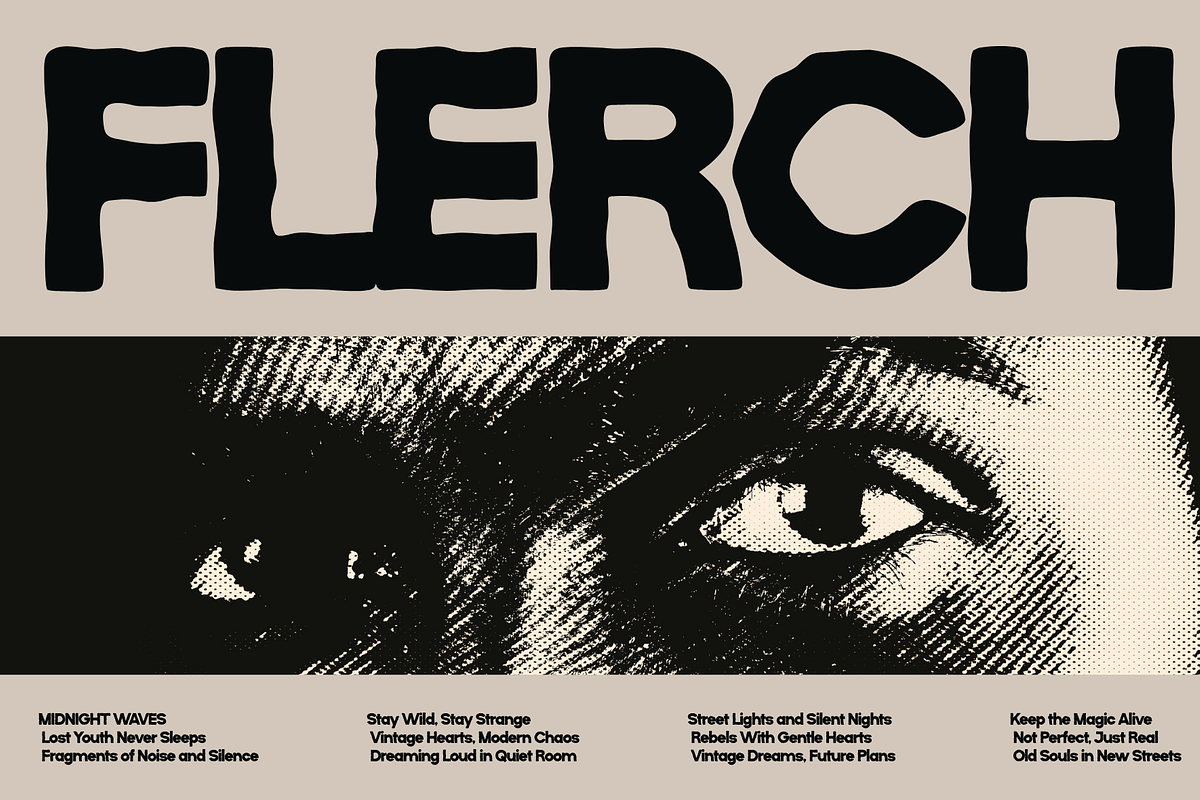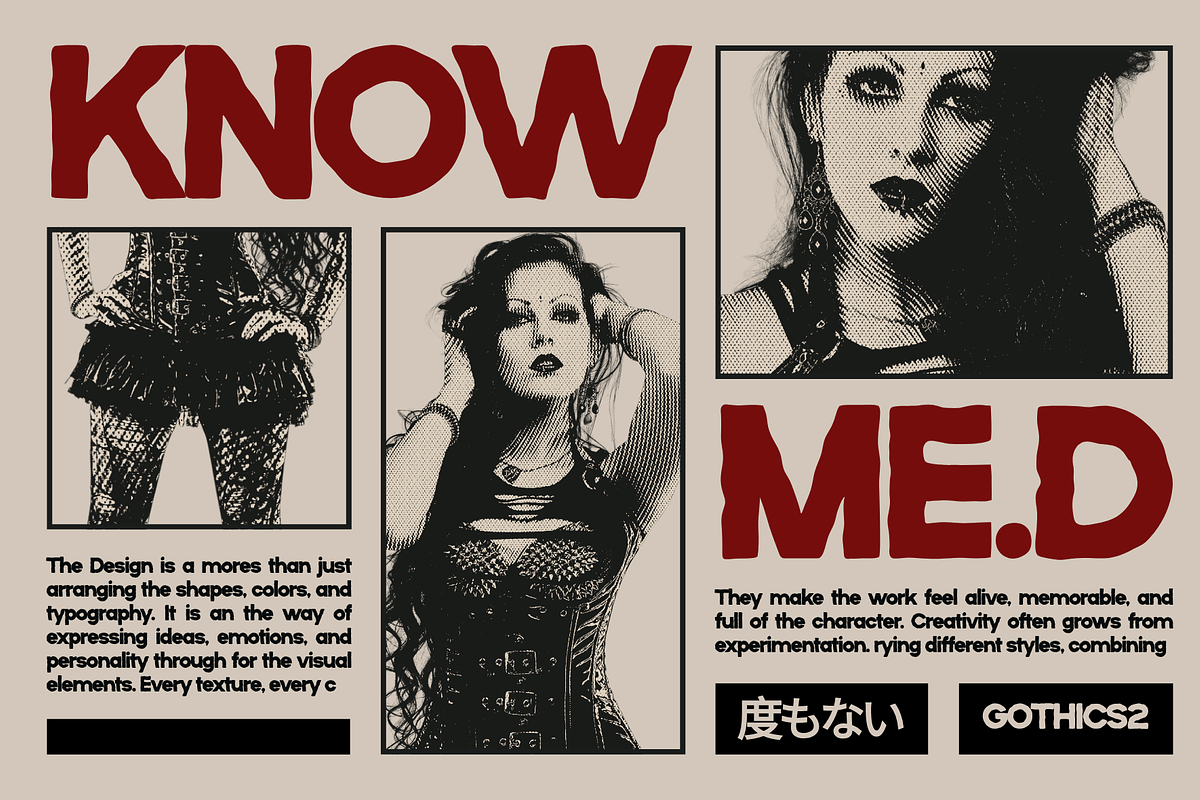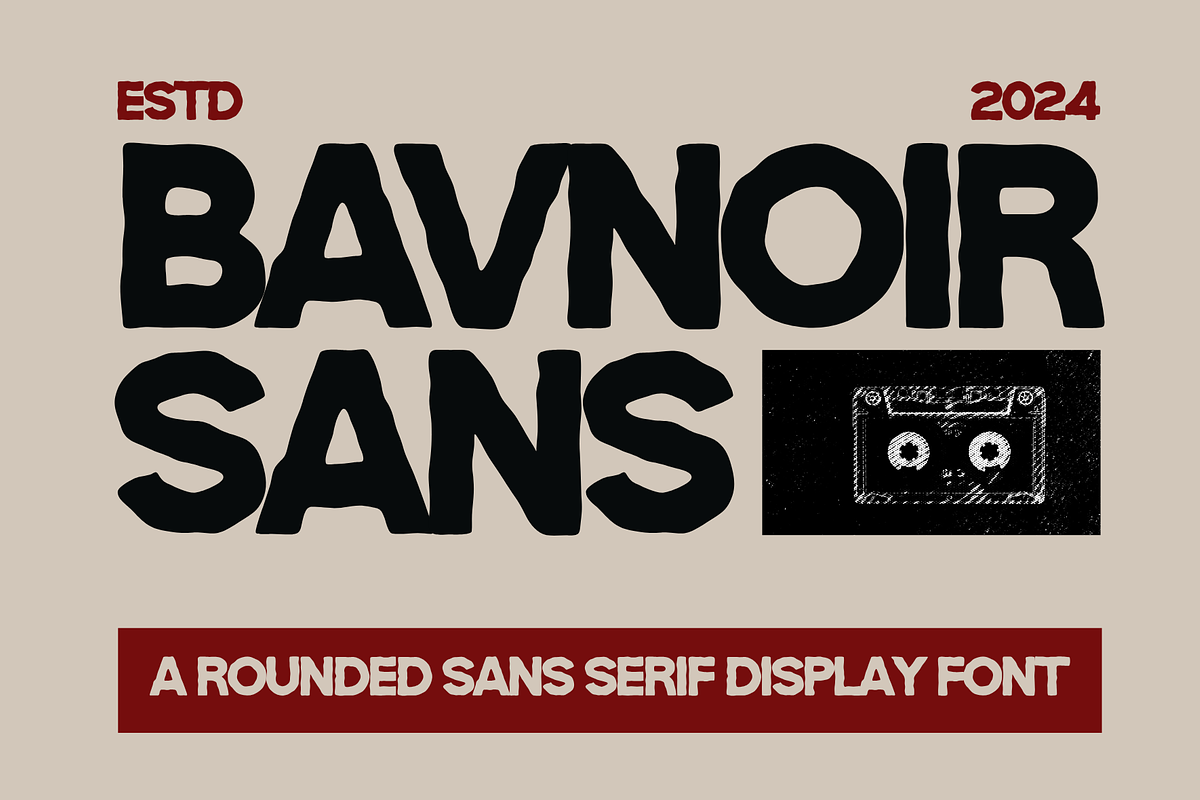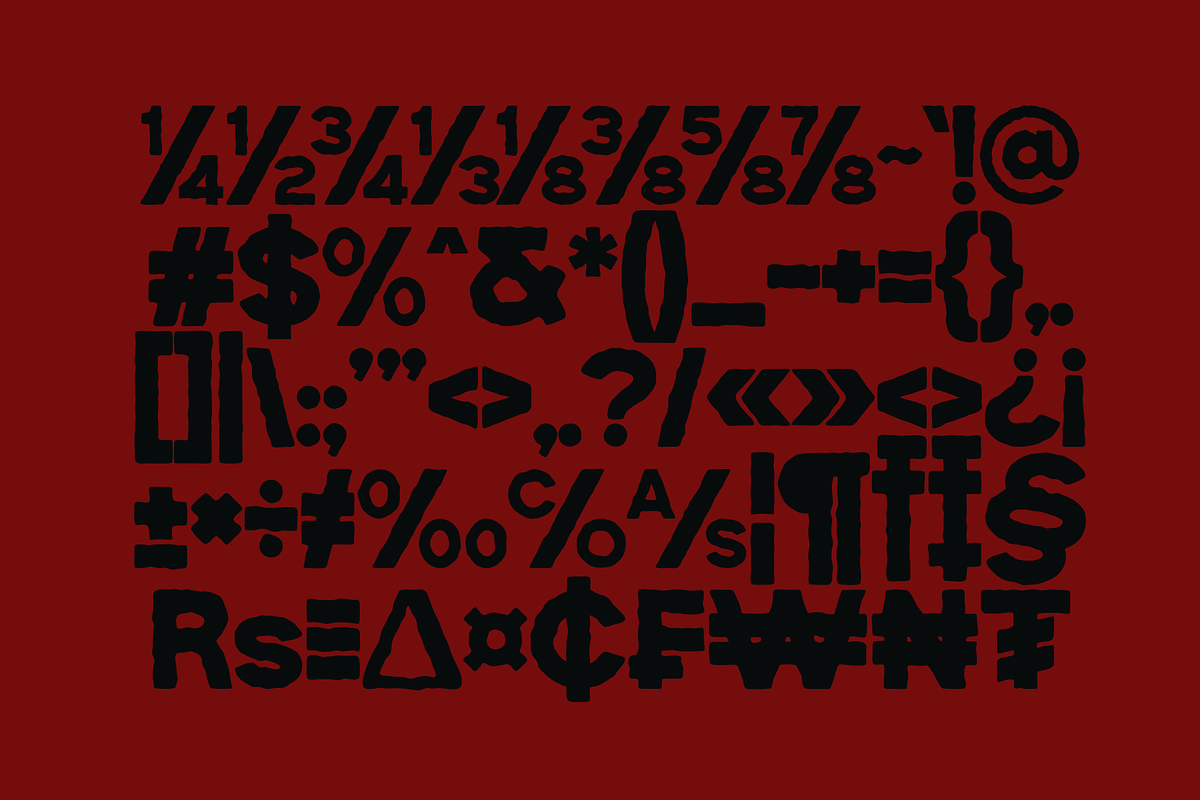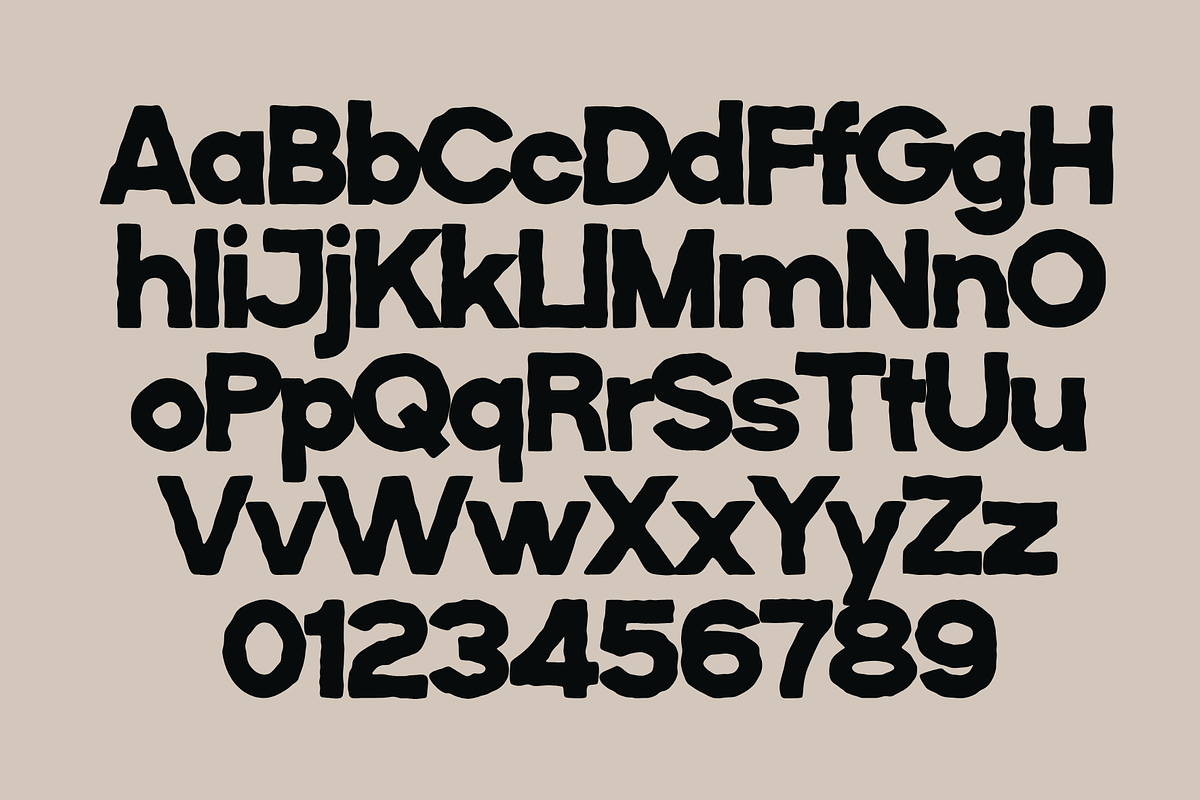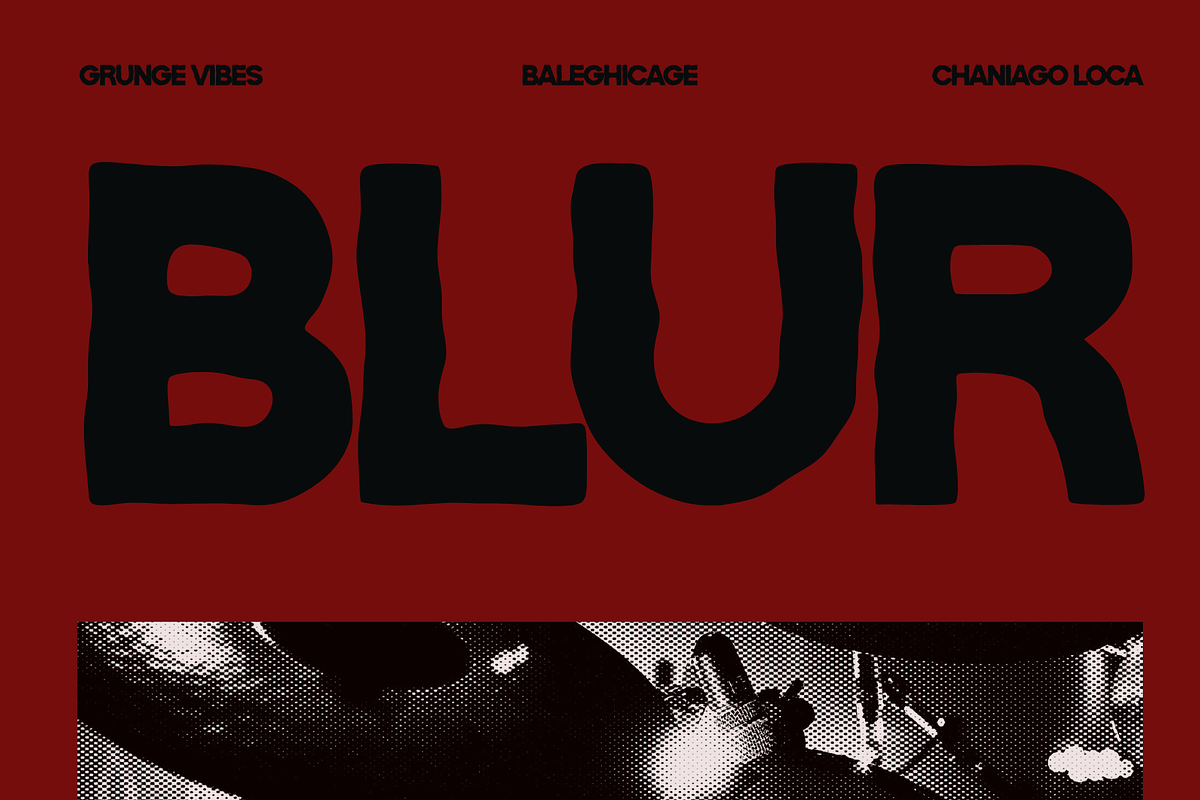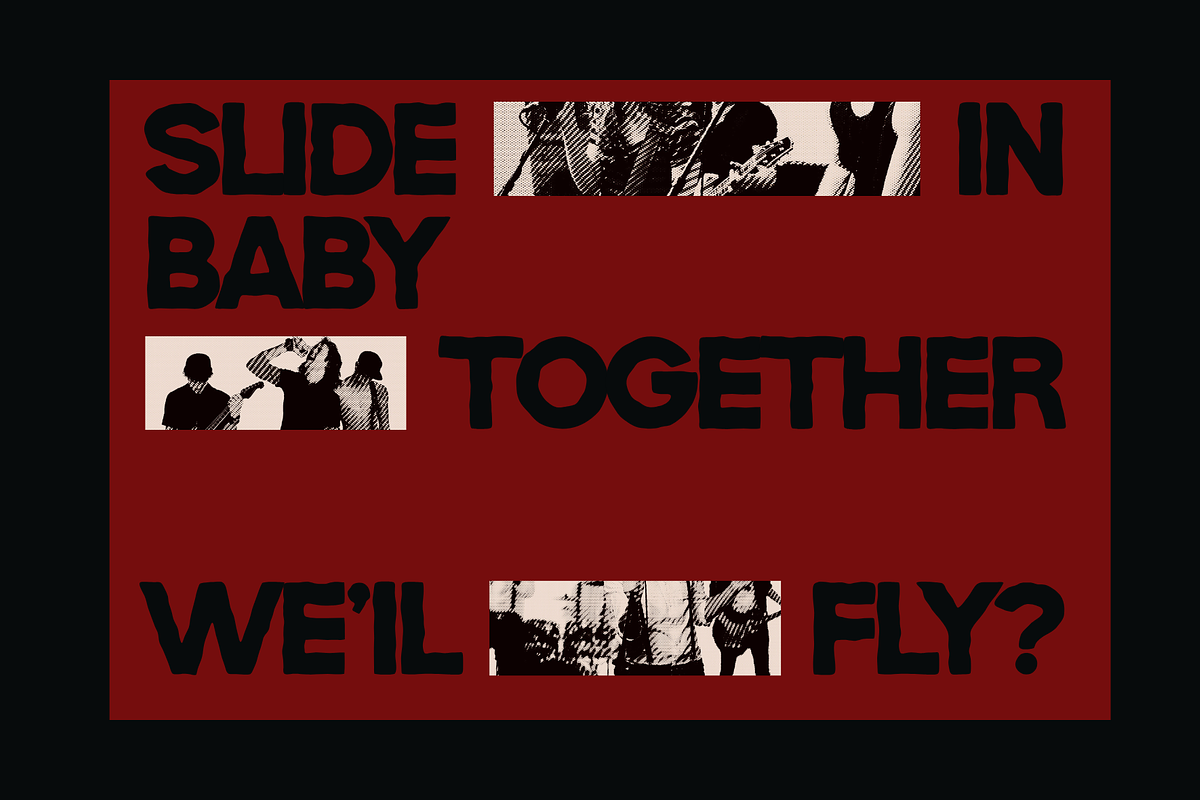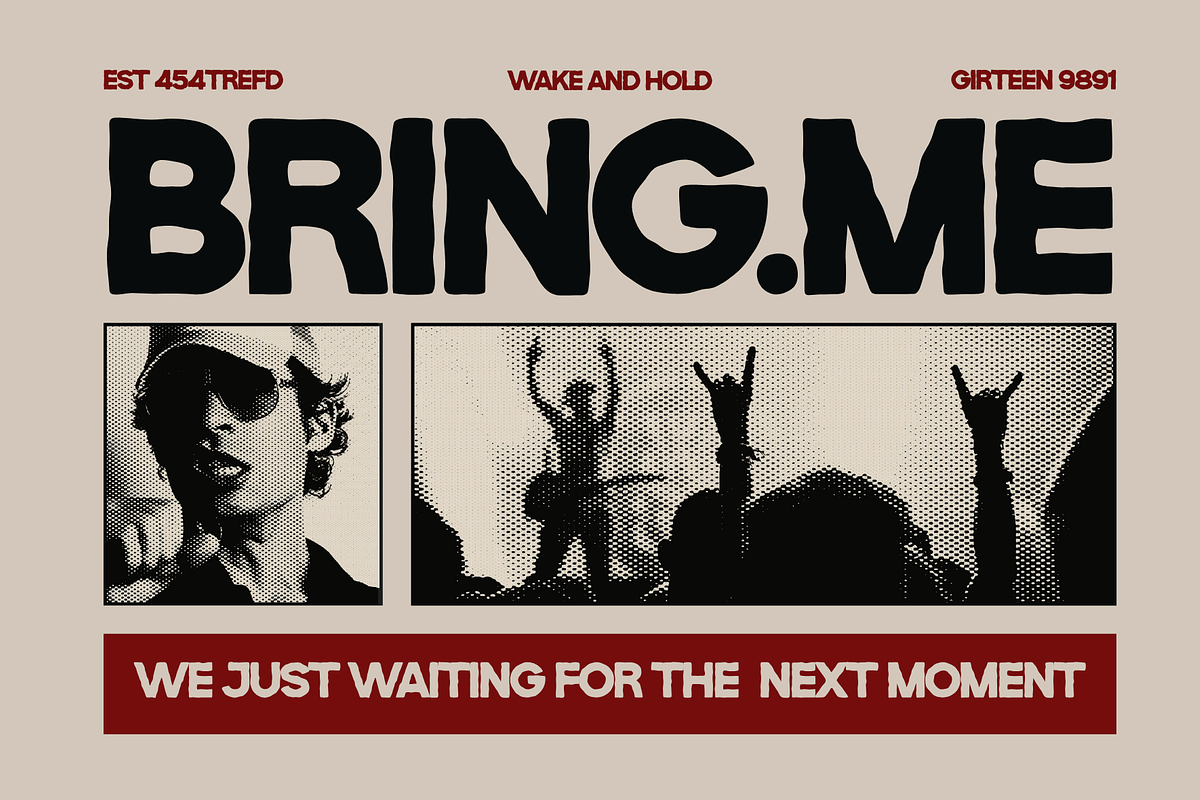
Bavnoir – Rounded Sans Serif Display
Introducing our new product Bavnoir – Rounded Sans Serif Display
Bavnoir is a Rounded Sans Serif Display with a strong and playful character. Featuring thick strokes and smooth rounded edges, this font delivers a bold visual impact that makes any design stand out. Its heavy style and friendly shapes create a perfect balance between modern aesthetics and fun personality.
Bavnoir is highly versatile and works perfectly for a wide range of creative projects such as logos, branding, posters, social and more. Whether you want to create eye-catching titles or energetic branding, this font will add a powerful and distinctive touch to your design.